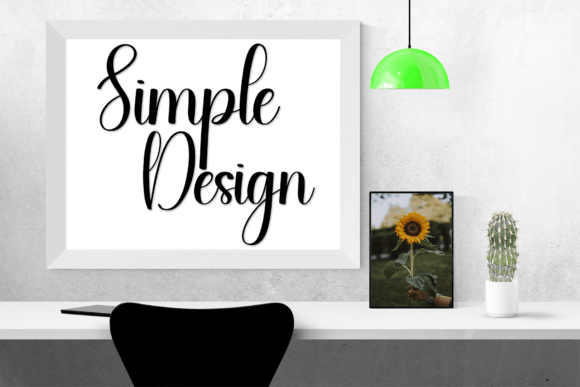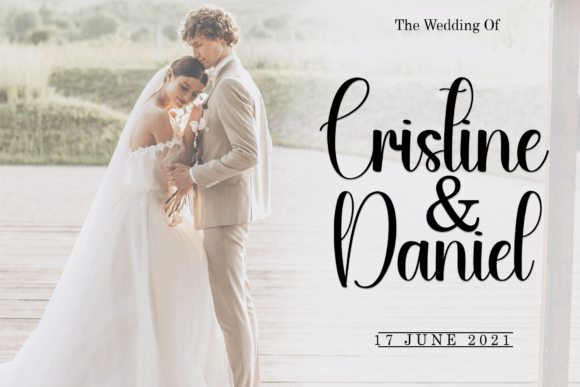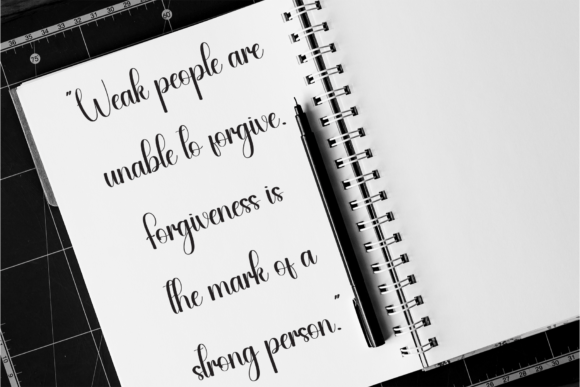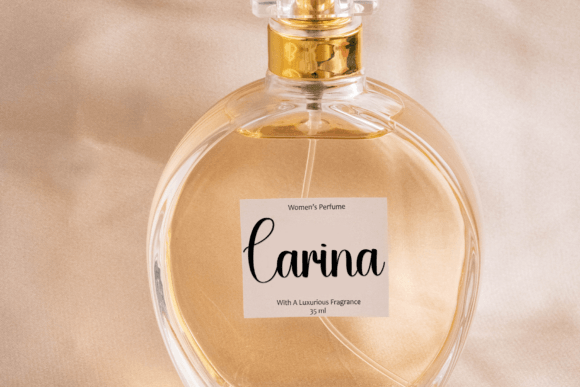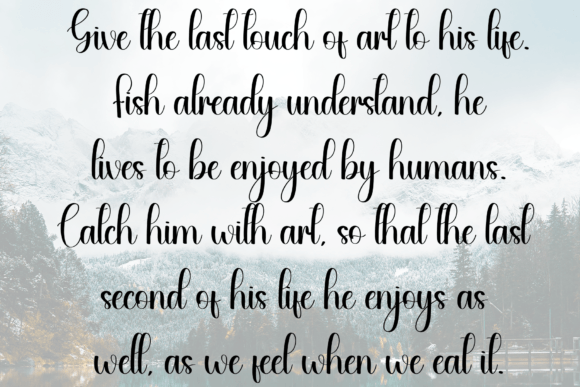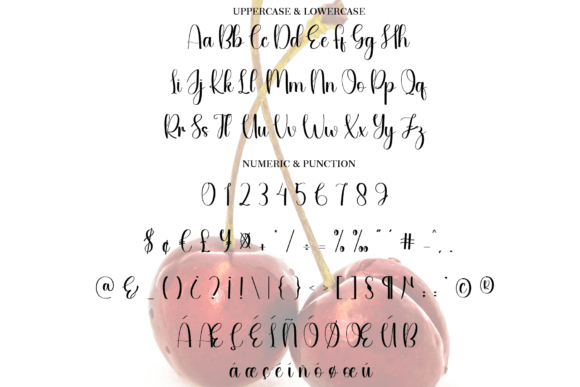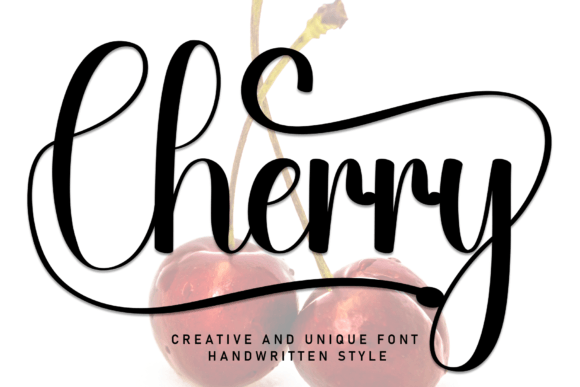
Introducing Cherry Font: The Sweet and Friendly Handwritten Font
Are you looking for a font that can add a touch of sweetness and friendliness to your designs? Look no further than Cherry Font! This beautiful handwritten font is perfect for creating wedding invitations, cards, and other designs that require a fun and playful touch.
What is Cherry Font?
Cherry Font is a type of handwritten font that is designed to mimic the look and feel of handwritten text. It is a sweet and friendly font that is perfect for adding a personal touch to your designs. The font is characterized by its playful and cursive style, which makes it ideal for creating designs that require a touch of elegance and sophistication.
Features of Cherry Font
Cherry Font has several features that make it a great choice for designers and crafters. Some of its key features include:
• Handwritten style: Cherry Font has a beautiful handwritten style that is perfect for creating designs that require a personal touch.
• Cute and fun: The font is designed to be cute and fun, making it perfect for creating designs that require a playful touch.
• Elegant and sophisticated: Despite its playful style, Cherry Font is also elegant and sophisticated, making it perfect for creating designs that require a touch of elegance.
• Easy to read: The font is easy to read, making it perfect for creating designs that require a clear and concise message.
Uses of Cherry Font
Cherry Font is a versatile font that can be used for a variety of design projects. Some of the most popular uses of the font include:
• Wedding invitations: Cherry Font is perfect for creating beautiful and elegant wedding invitations that require a personal touch.
• Cards: The font is also great for creating cards for special occasions such as birthdays, anniversaries, and holidays.
• Social media graphics: Cherry Font can be used to create fun and engaging social media graphics that require a playful touch.
• Blog posts: The font can also be used to create blog posts that require a personal and friendly touch.
Benefits of Using Cherry Font
There are several benefits to using Cherry Font in your designs. Some of the most significant benefits include:
• Unique and creative: Cherry Font is a unique and creative font that can help you stand out from the crowd.
• Versatile: Cherry Font is a versatile font that can be used for a variety of design projects.
Tips for Using Cherry Font
Here are some tips for using Cherry Font in your designs:
• Use it sparingly: Cherry Font is a bold font, so it’s best to use it sparingly to avoid overwhelming your design.
• Pair it with other fonts: The font can be paired with other fonts to create a unique and creative look.
• Experiment with different colors: Cherry Font can be used with a variety of colors to create a unique and creative look.
• Use it for headings: The font is perfect for creating headings and titles that require a playful touch.
In conclusion, Cherry Font is a sweet and friendly handwritten font that is perfect for adding a touch of elegance and sophistication to your designs. Its playful and cursive style makes it ideal for creating wedding invitations, cards, and other designs that require a fun and playful touch. With its ease of use, versatility, and cost-effectiveness, Cherry Font is a great choice for designers and crafters.